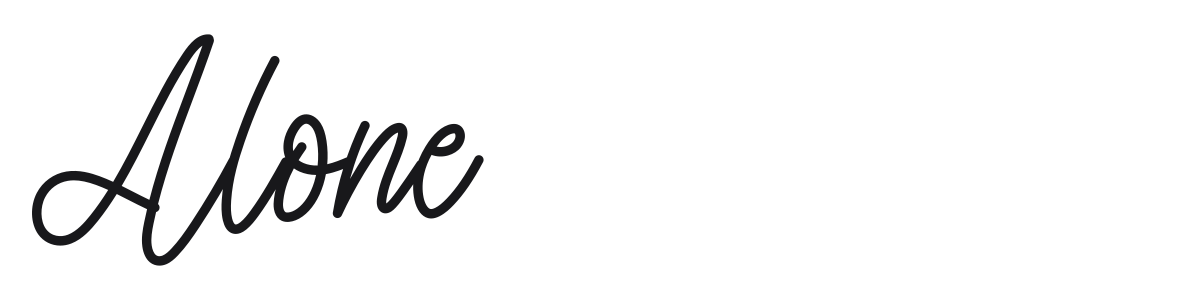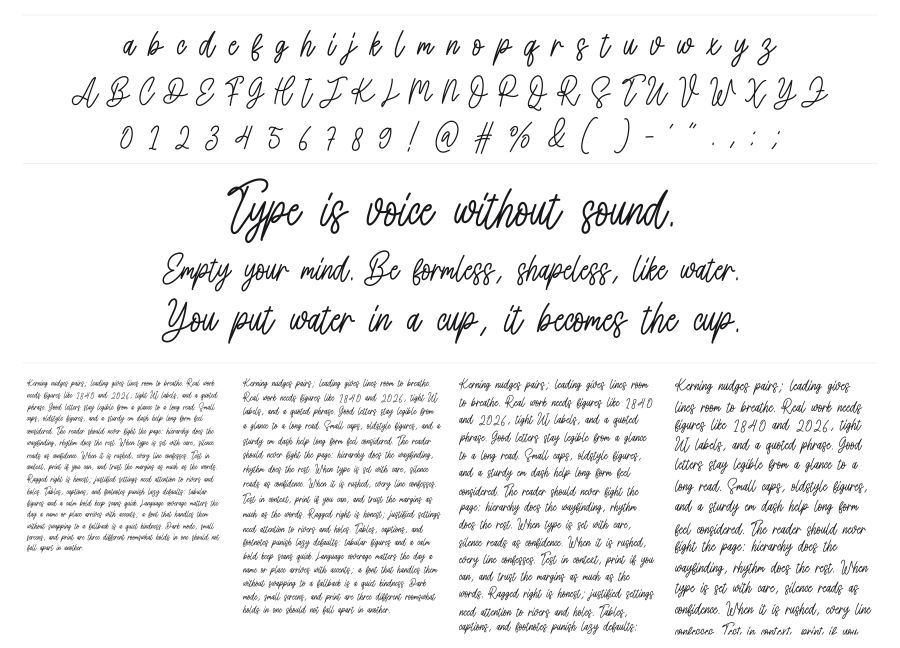
Alone
Alone is a flowing casual script with a relaxed, pen-written character and smoothly connected strokes. Its gentle undulating rhythm and soft rounded terminals give it a warm, personal quality that works well for wedding stationery, branding, and social media graphics. The overall feel sits between polished and spontaneous, which is exactly where many modern lifestyle brands want to live.